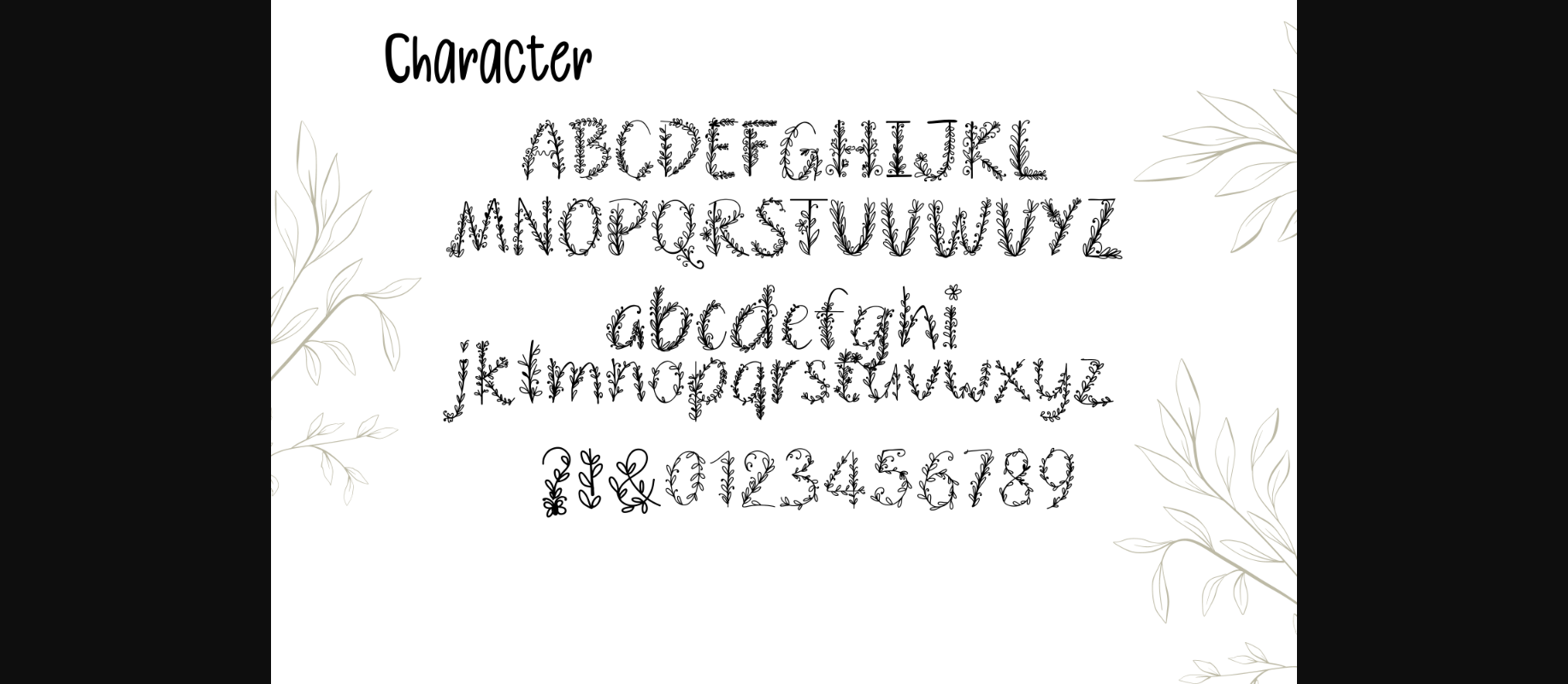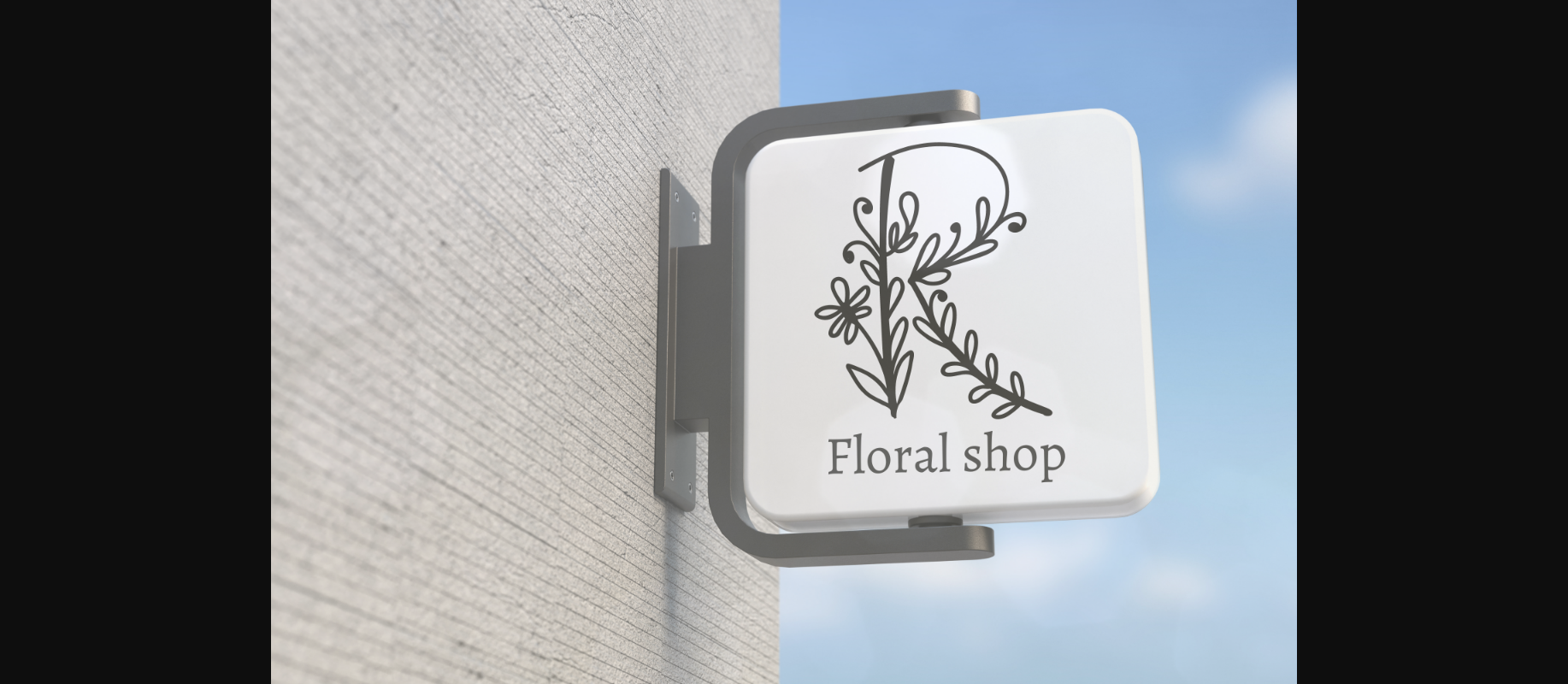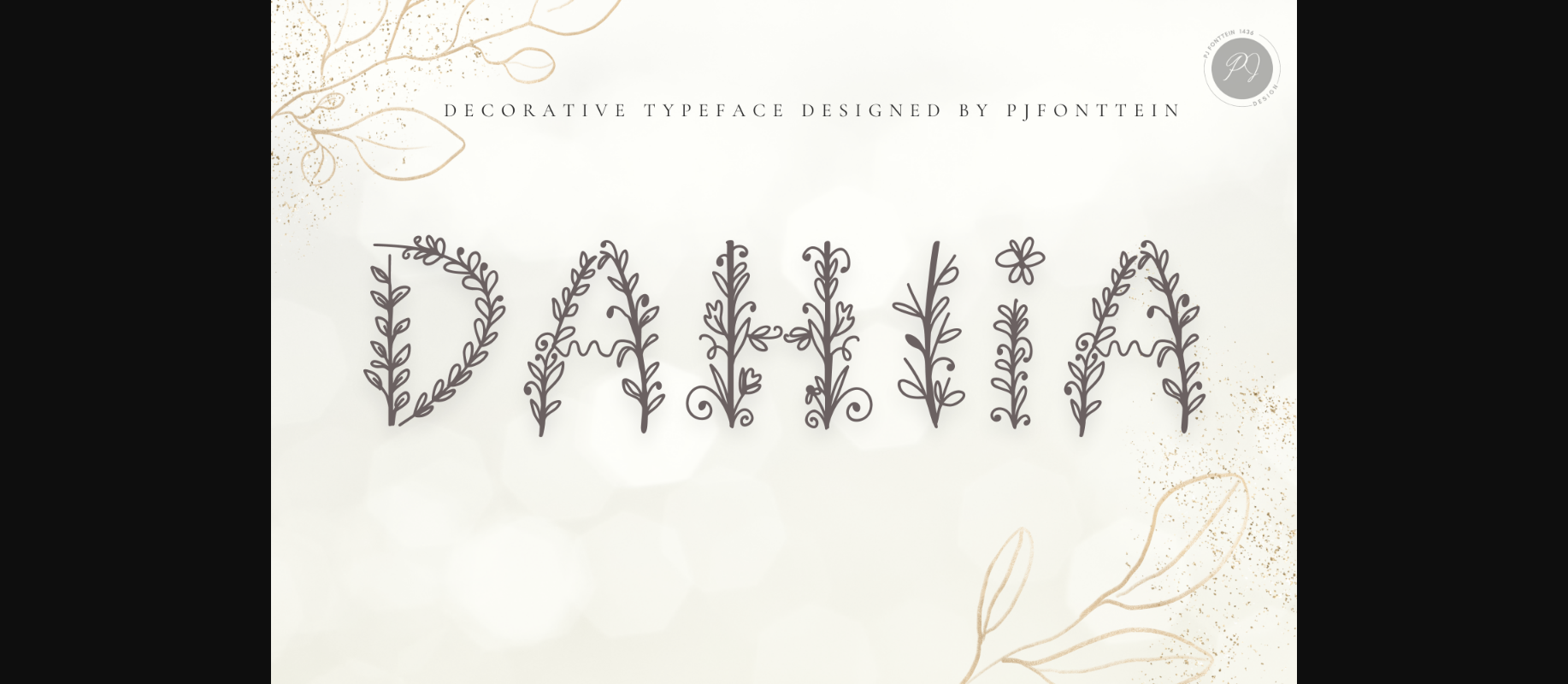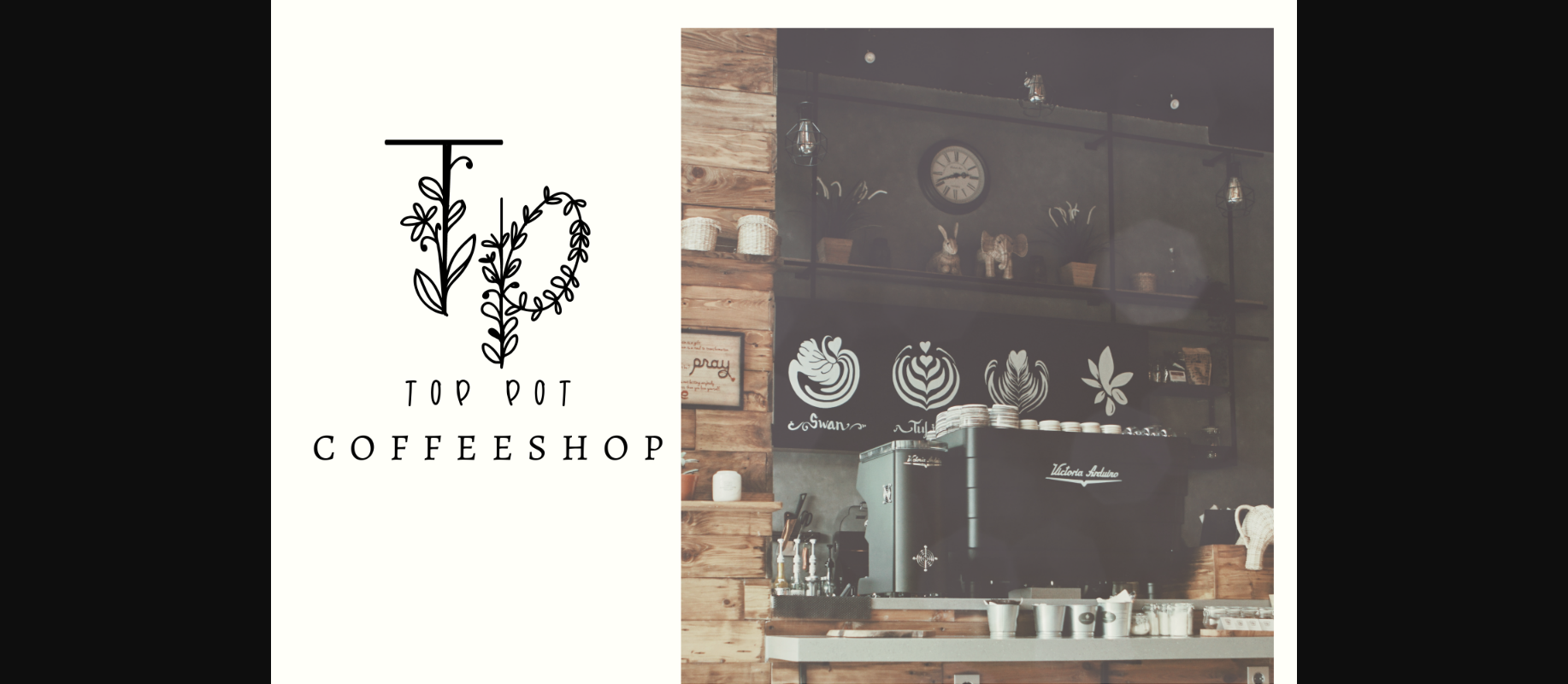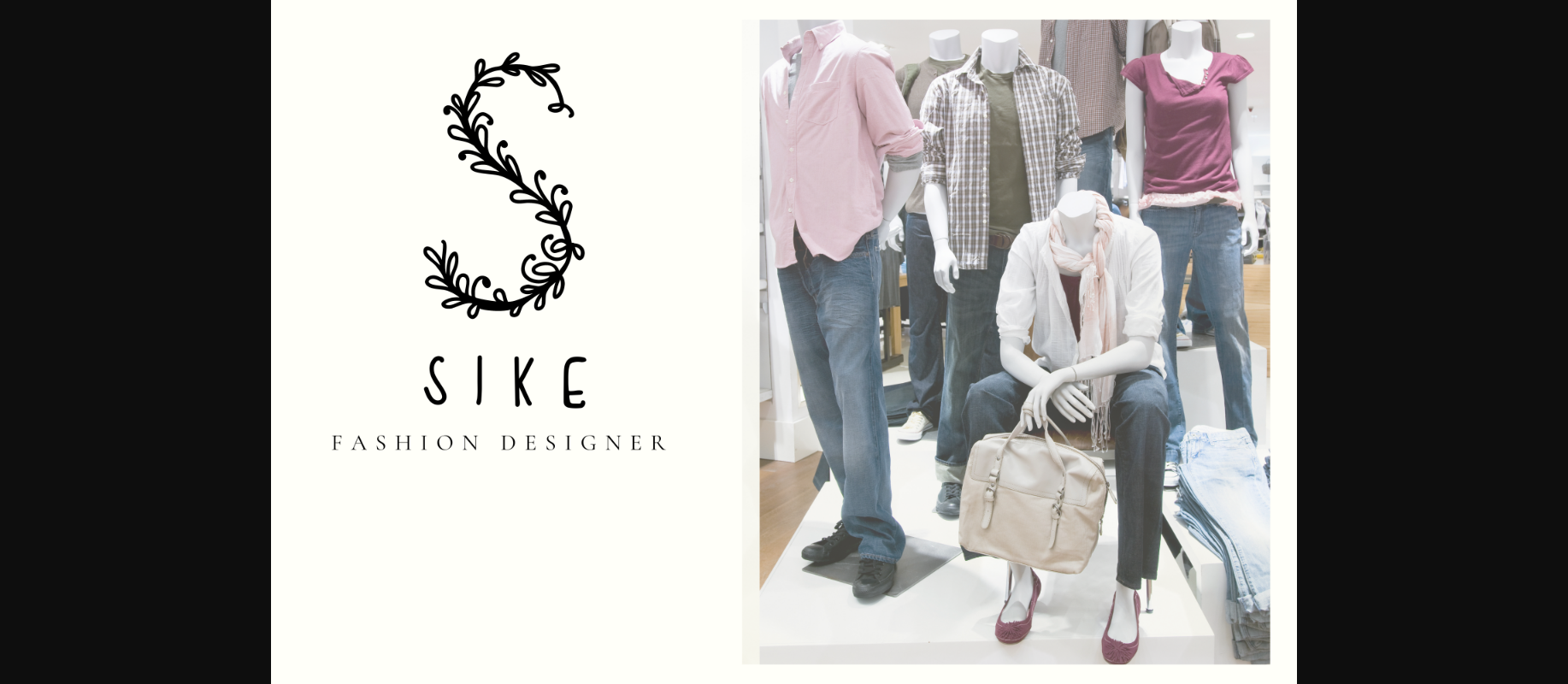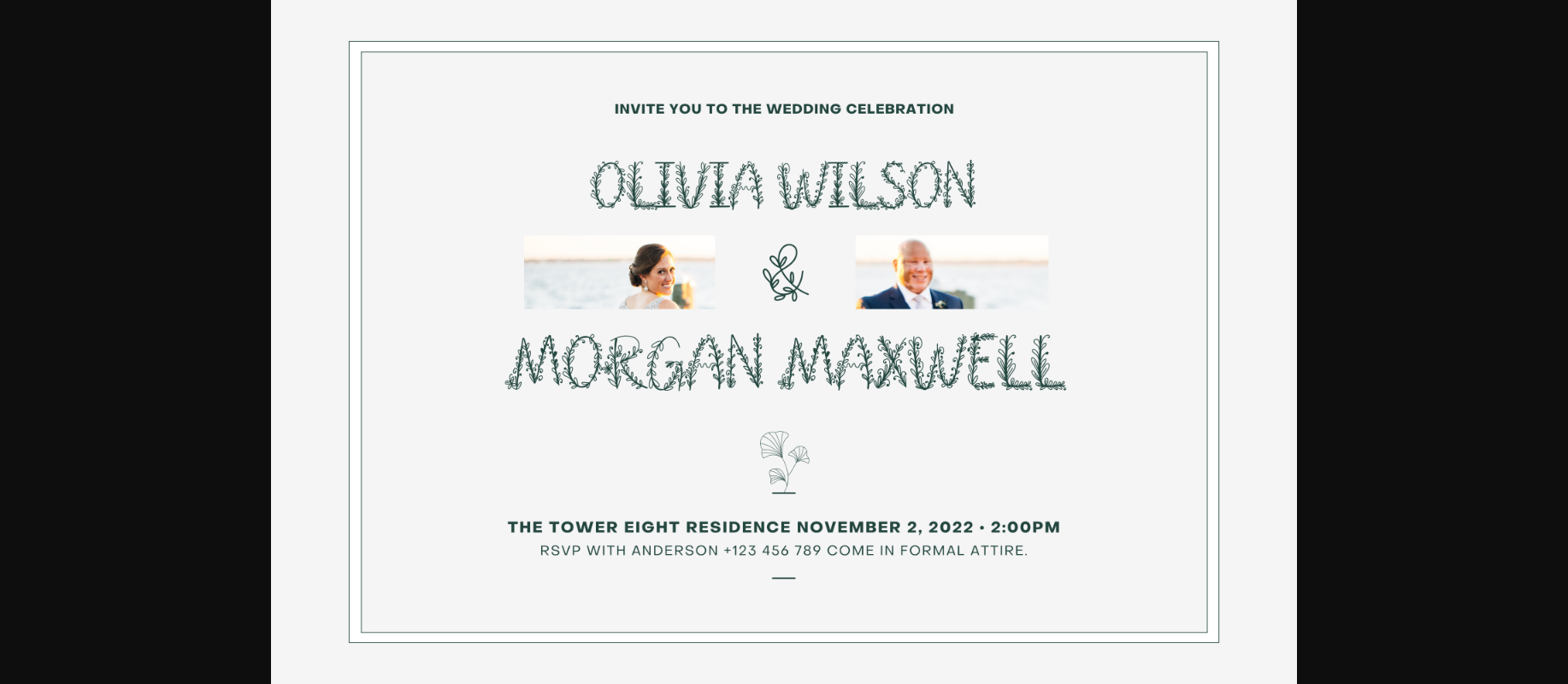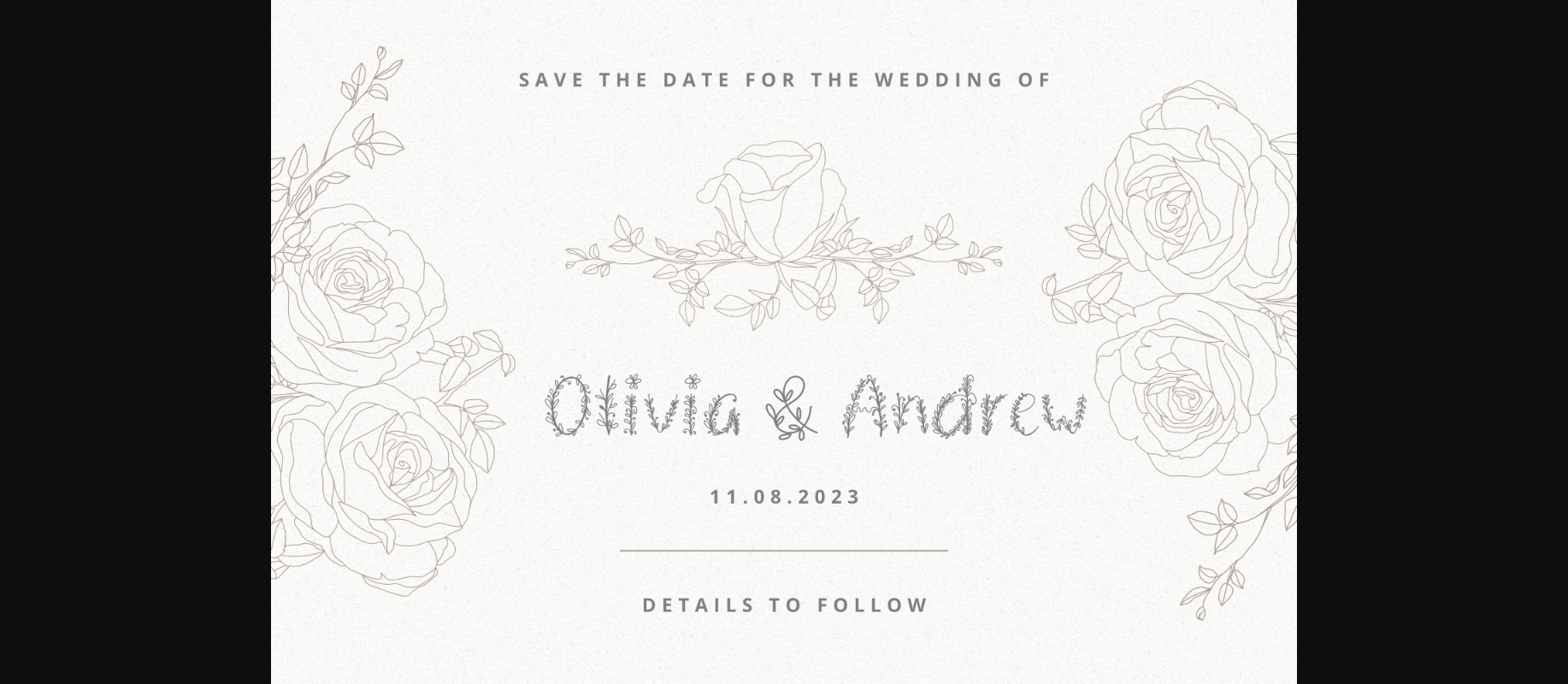
About Dahlia Font
Dahlia is a handcrafted floral font. It is ideal for making logos, branding, websites, business cards, invites, and more!
Handmade into a lovely floral piece from each letter. Each letter’s floral patterns are exclusive to that letter. There are no duplicate floral patterns.